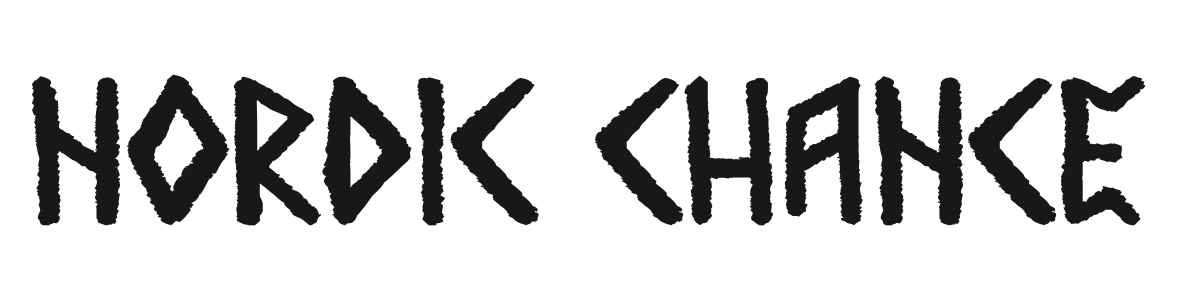
Nordic Chance
Nordic Chance is a bold runic display font inspired by ancient Norse inscriptions and Elder Futhark lettering. Every character is built from angular cuts and sharp terminals, with subtly rough edges that suggest something chiseled from stone or wood. It brings an unmistakable Viking-era weight to headlines, album covers, and game titles.